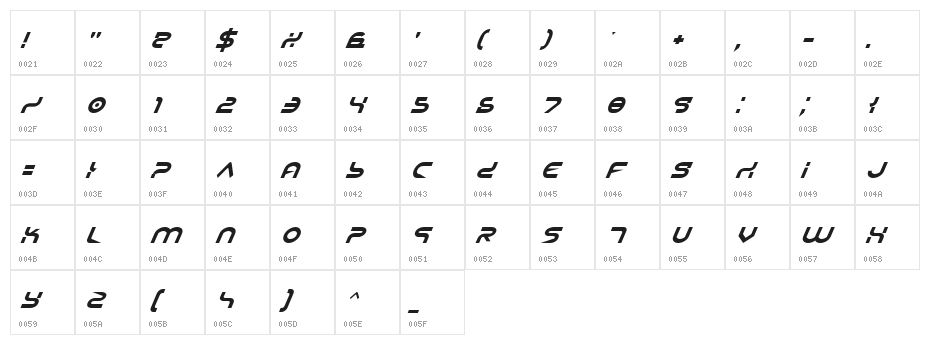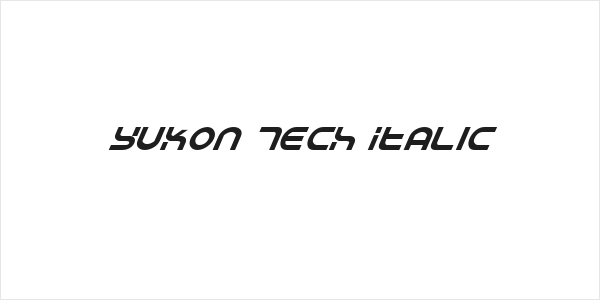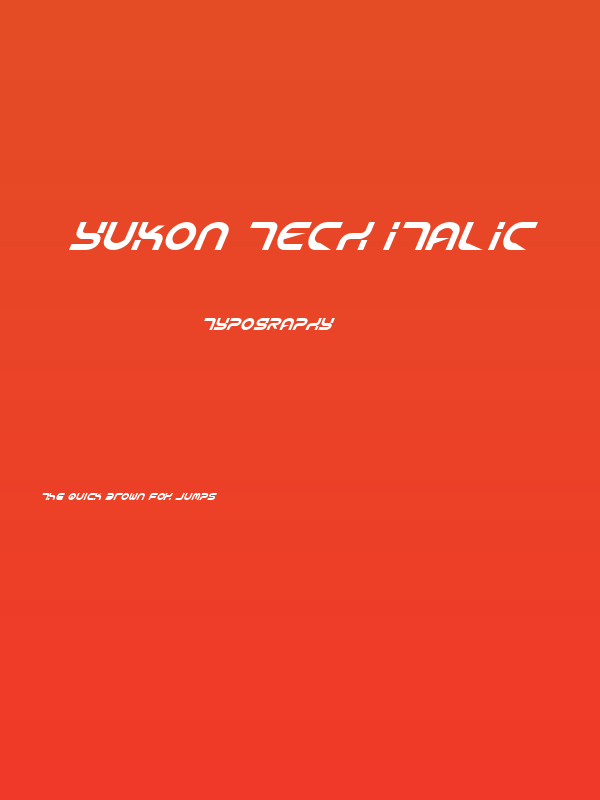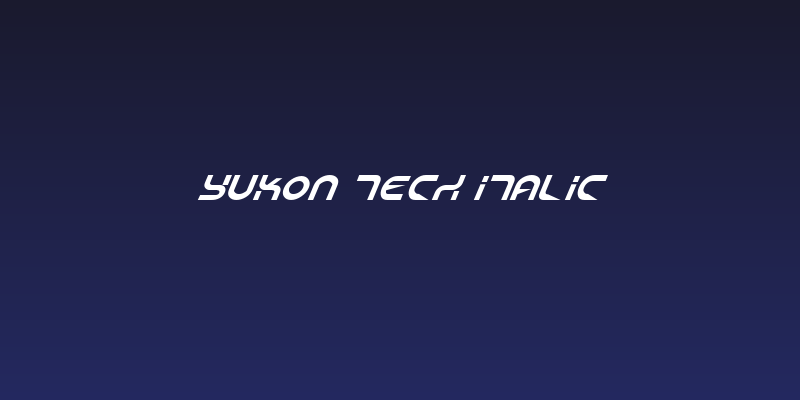
Yukon Tech Italic Font
Yukon Tech Italic Description
This font features a futuristic and sleek design with a strong emphasis on angular and geometric shapes. The characters are italicized, giving a sense of motion and dynamism. The strokes are consistent in weight, providing a uniform appearance across all characters. The design incorporates sharp edges and a slightly condensed form, enhancing its modern and tech-inspired aesthetic. The numerals and special characters maintain the same stylistic approach, ensuring cohesion throughout the typeface. This font is ideal for projects that require a contemporary and cutting-edge look.
| Proposed Projects | Ideal for technology branding, sci-fi themed projects, video game interfaces, and modern advertising. |